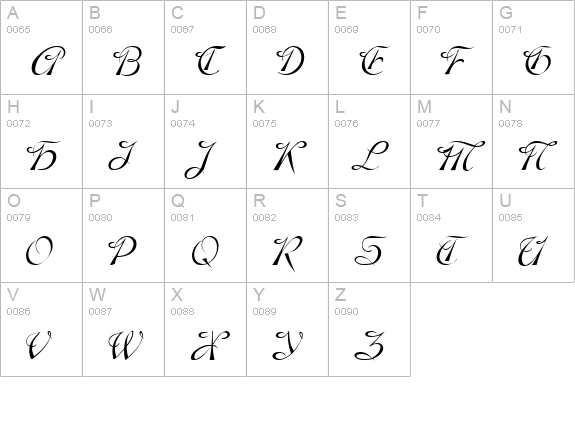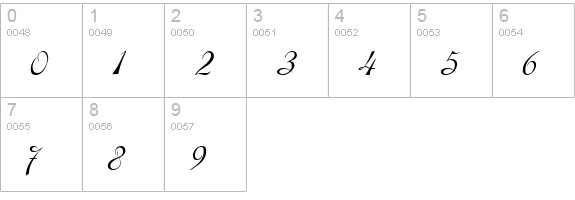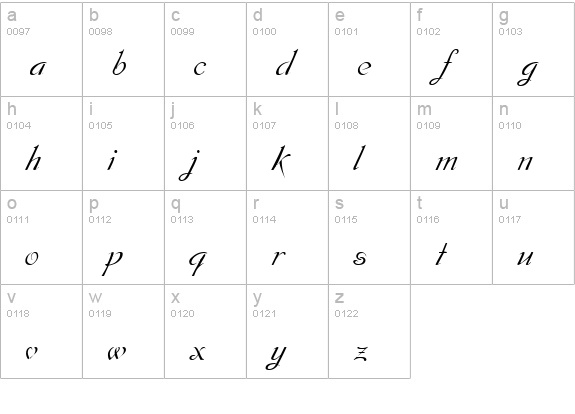
DobkinScript Font Details
DobkinScript font is a charming and elegant script typeface that exudes sophistication and style. With its flowing lines and graceful curves, this font is perfect for adding a touch of class to any design project. Whether you're creating wedding invitations, greeting cards, or branding materials, DobkinScript will bring a sense of refinement to your work. The best part? DobkinScript is available for free download at FontsMarket.com. This means you can access this beautiful font without any cost, making it a valuable addition to your font library. Don't miss out on the opportunity to enhance your designs with the timeless beauty of DobkinScript. Download it today and elevate your projects to the next level.